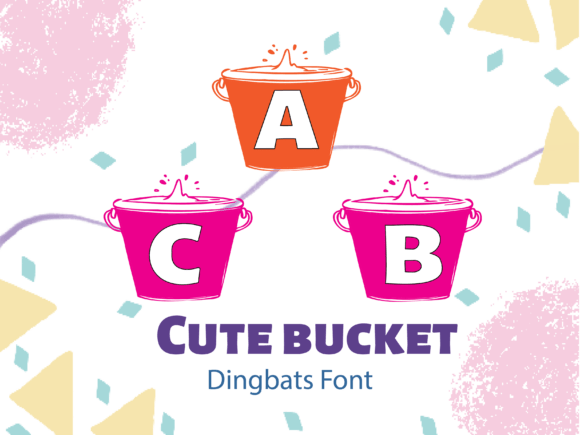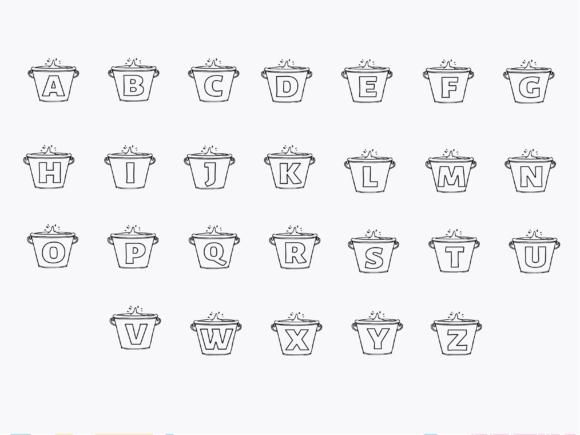
Introduction to Cute Bucket Font
As a crafter, there’s nothing quite like the thrill of bringing a design to life. It starts with a spark of inspiration – a color palette, a font, or in this case, a charming dingbats font that sets the tone for an entire project. For those who have been searching for a way to add a playful touch to their craft projects, scrapbooking, invitations, and digital designs, your search is over. Enter the Cute Bucket Font, a delightful design resource that’s sure to become a favorite.
This adorable font features a complete set of 26 uppercase letters, each perfectly centered within a sweet bucket outline. With its clean, bold outlines, it’s a breeze to cut out on Cricut, Silhouette, and other crafting machines, making it an ideal choice for vinyl decals, personalized gifts, and creative typography projects.
Key Features of Cute Bucket Font
- High-quality design for creative projects, including digital art, graphic design, and web development.
- Transparent background option for seamless integration with various design elements.
- Includes 100 glyphs, with a font size range of 8-72 points and a resolution of 300 DPI.
- Unique, playful design elements make it an ideal choice for whimsical and child-friendly projects.
- Perfect for designers and artists looking for a fun and creative design resource.
Honest Review: Cute Bucket Font
I recently stumbled upon the Cute Bucket Font while searching for a high-quality font to use in a creative project, and I’m excited to share my thoughts with you.
- ✨ The Cute Bucket Font has a transparent background, allowing it to be easily layered over other design elements.
- ✨ The font is a great choice for projects that require a playful, whimsical feel.
- ⚠️ The font may not be suitable for professional or corporate projects due to its casual, childlike feel.
- ⚠️ Some users may find the font’s rounded edges and simplistic design to be too simple or lacking in sophistication.
Overall, I think the Cute Bucket Font is a fun and creative resource that can add a unique touch to your designs. While it may not be suitable for every project, it’s a great choice for those looking to add a playful, whimsical feel to their work.
Cute Bucket Font
The Cute Bucket Font is a high-quality, free download design resource ideal for creative projects. With a transparent background, this font can be easily integrated into various design platforms.
Tips for Getting the Most Out of Cute Bucket Font
To get the most out of Cute Bucket Font, use it for creative projects such as:
- Designing children’s books and educational materials.
- Creating social media graphics and advertisements.
- Developing brand identities and logos.
The Cute Bucket Font is ideal for projects that require a playful, whimsical touch. Use it for:
- Food and beverage branding.
- Toy and game packaging.
- Children’s party invitations and decorations.
Alternatives to Cute Bucket Font
Comic Sans MS
Comic Sans MS is a classic sans-serif font often used in creative projects that require a playful and approachable tone. It’s available for free download and has a transparent background, making it easy to use on any design resource.
When to use: Comic Sans MS is ideal for informal and friendly designs, such as children’s books, social media graphics, or advertisements.
Comparison to Cute Bucket Font: Comic Sans MS has a more traditional and familiar feel compared to Cute Bucket Font’s unique, handwritten style. While Cute Bucket Font is more versatile, Comic Sans MS excels in conveying a sense of approachability and playfulness.
Lobster
Lobster is a modern script font that works well in creative projects requiring a touch of elegance and sophistication. It’s available for free download and has a high-quality design that makes it perfect for various design resources.
When to use: Lobster is ideal for formal and stylish designs, such as wedding invitations, luxury brand logos, or high-end advertisements.
Comparison to Cute Bucket Font: Lobster has a more refined and sophisticated feel compared to Cute Bucket Font’s casual, handwritten style. While Cute Bucket Font is perfect for casual designs, Lobster excels in conveying a sense of luxury and sophistication.
Is Cute Bucket Font suitable for a high-quality design project?
Cute Bucket Font is designed to be a high-quality design resource, making it perfect for creative projects that require a professional and polished look. The font’s unique style and high-resolution design ensure that it will look great on any medium, from business cards to billboards.